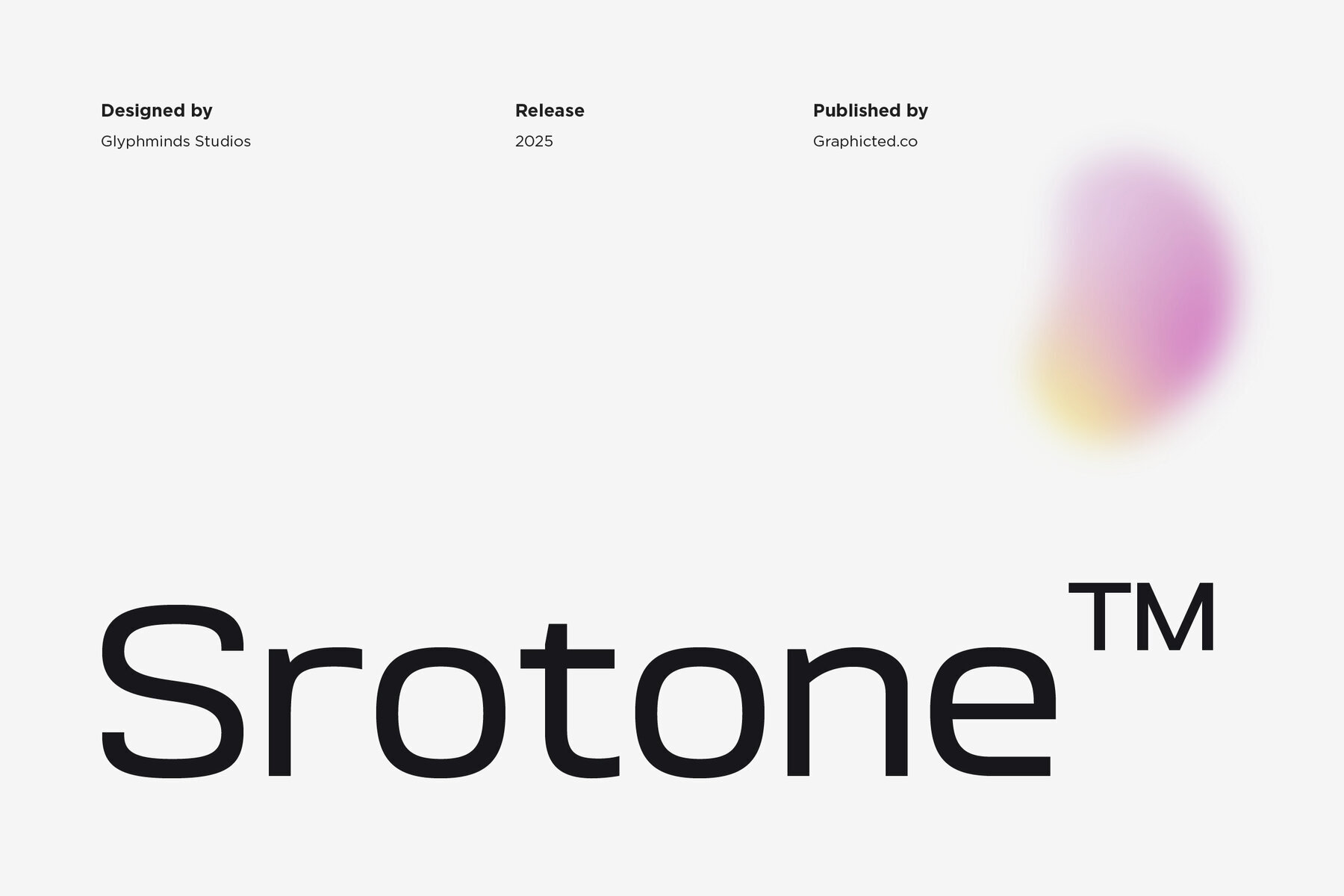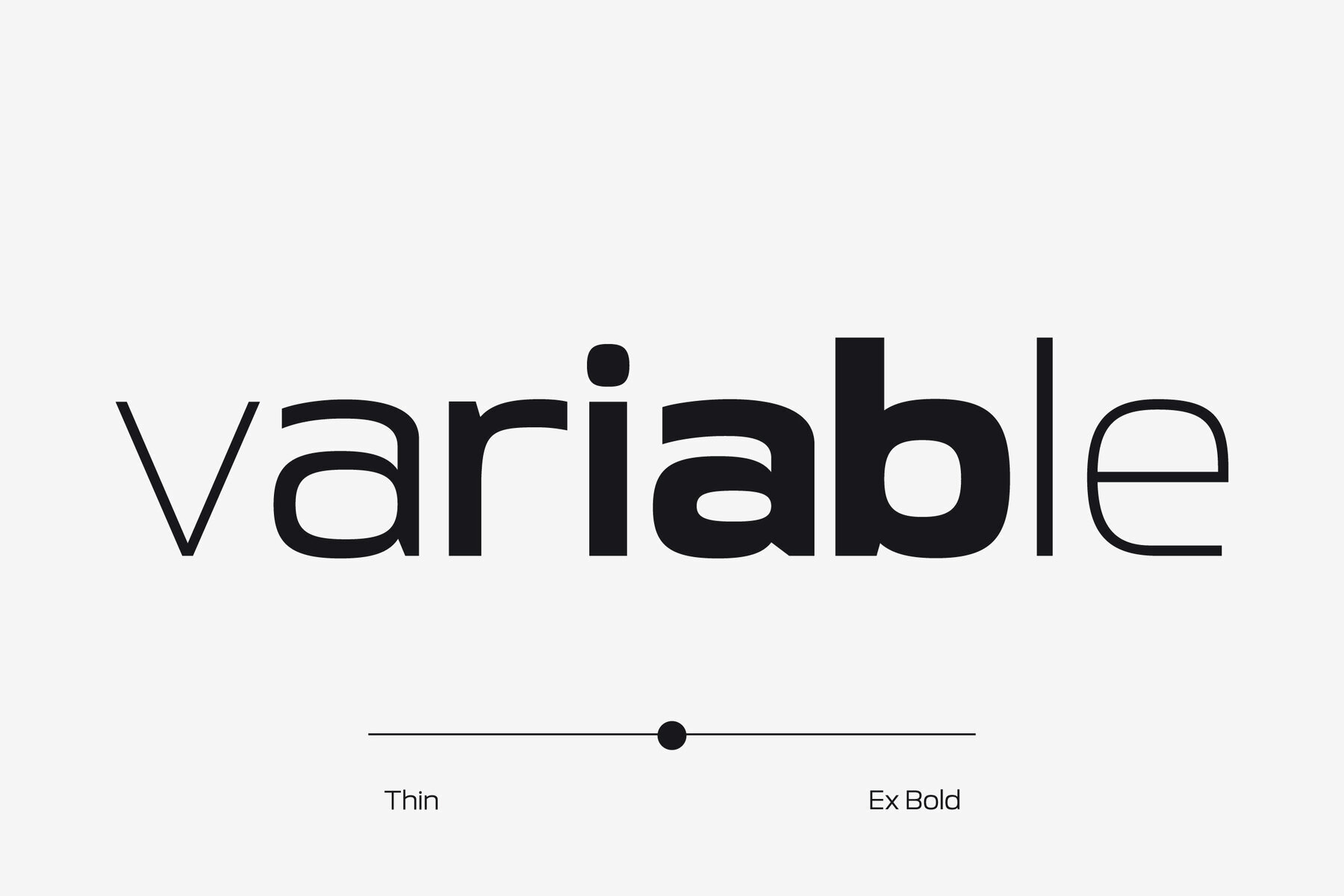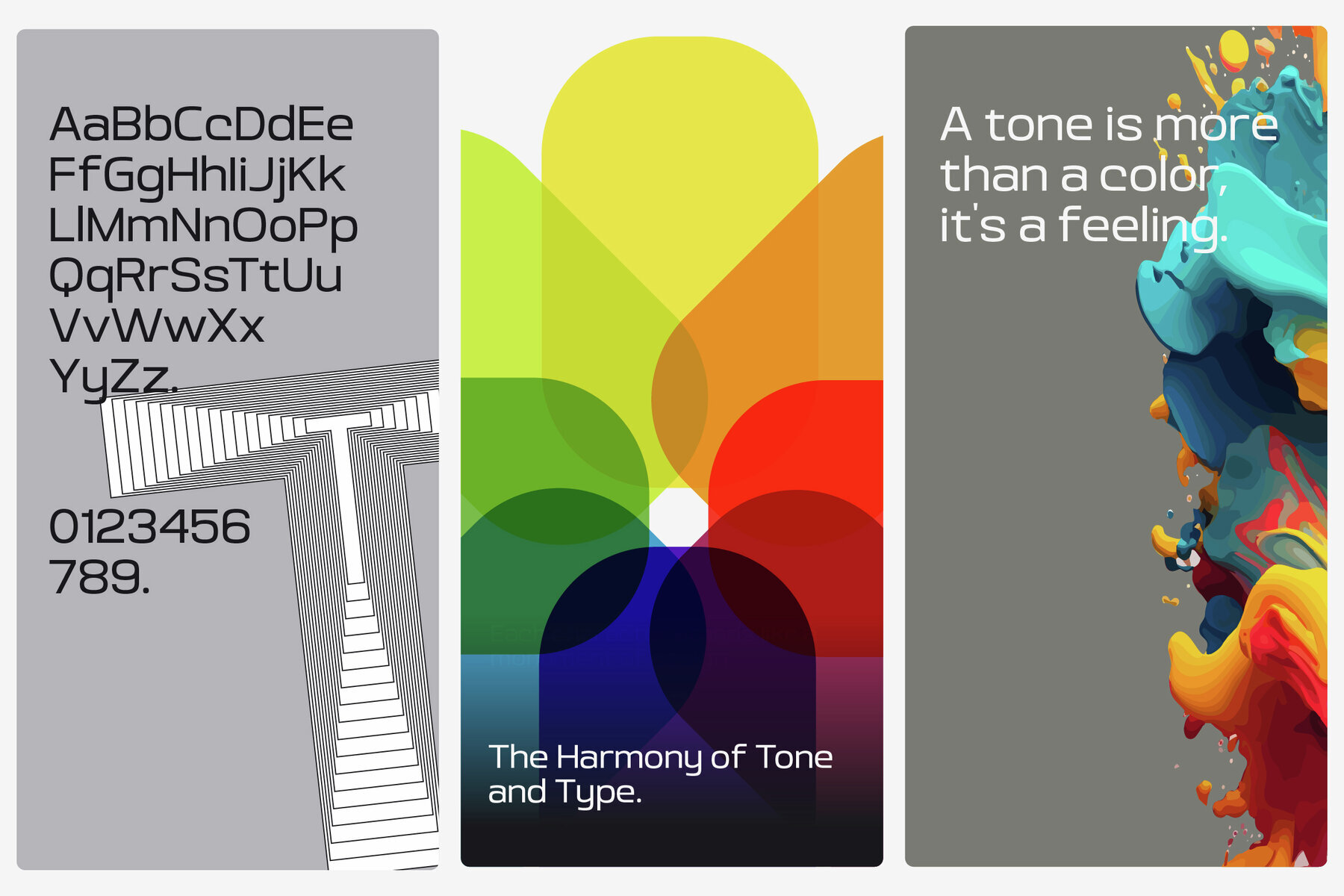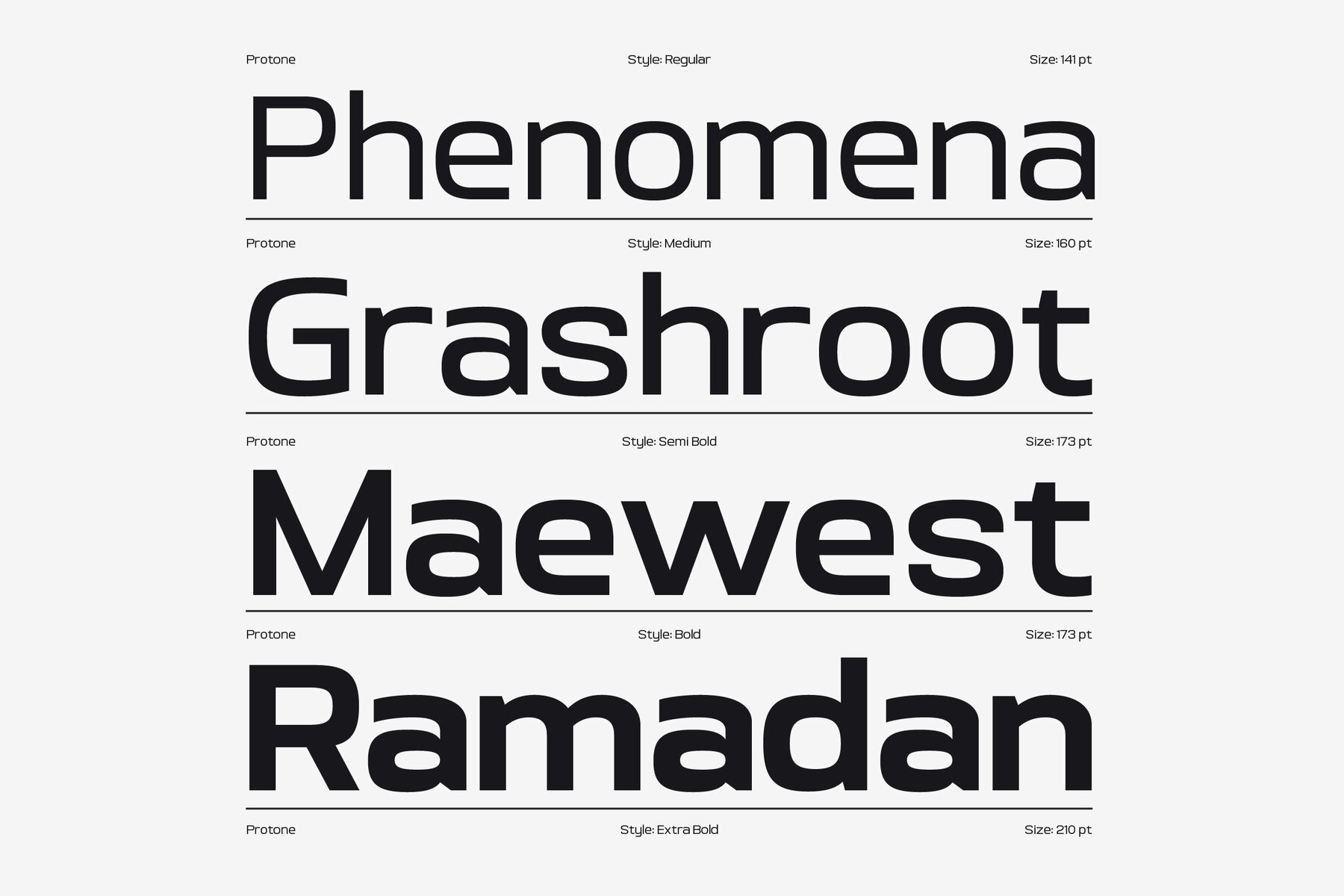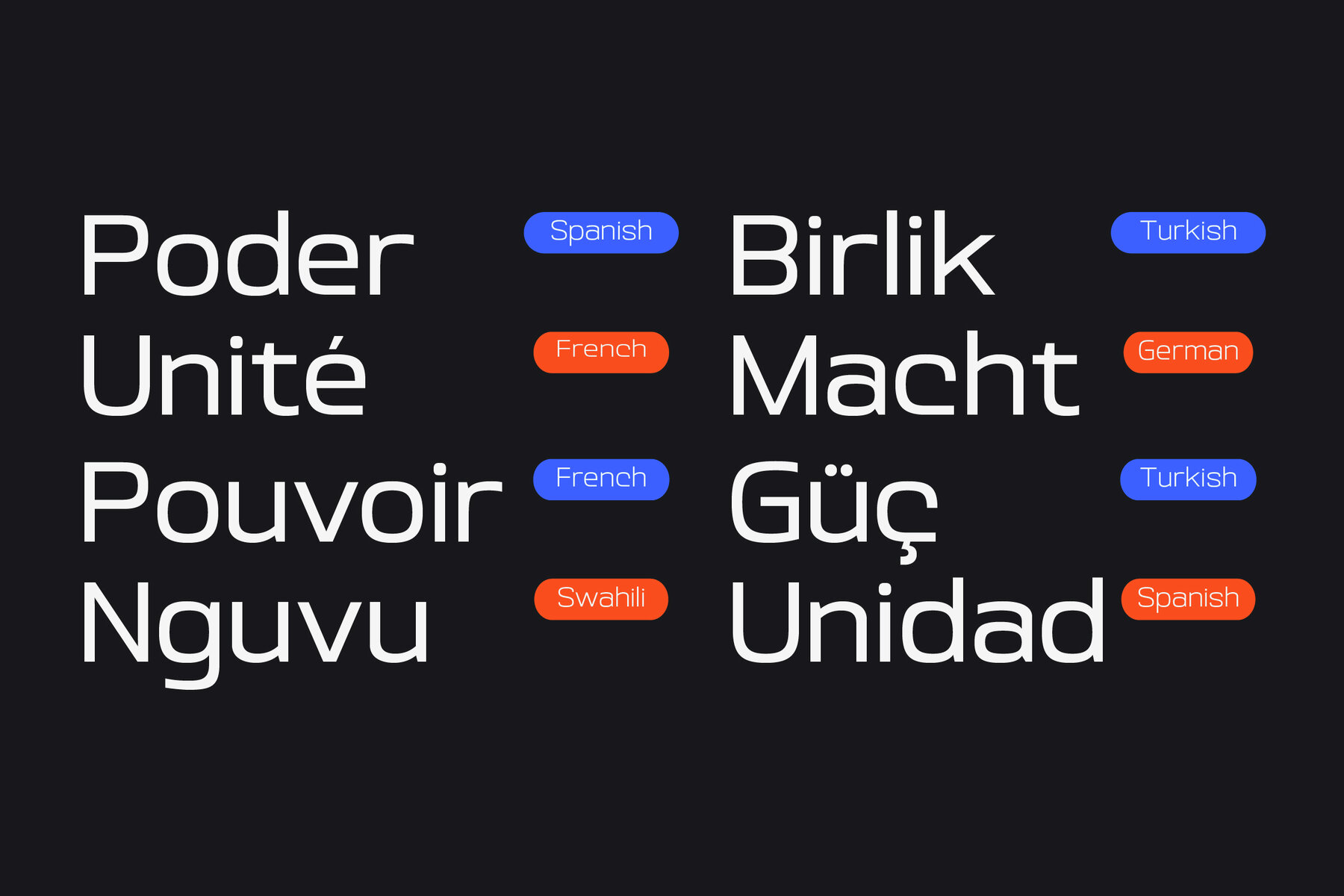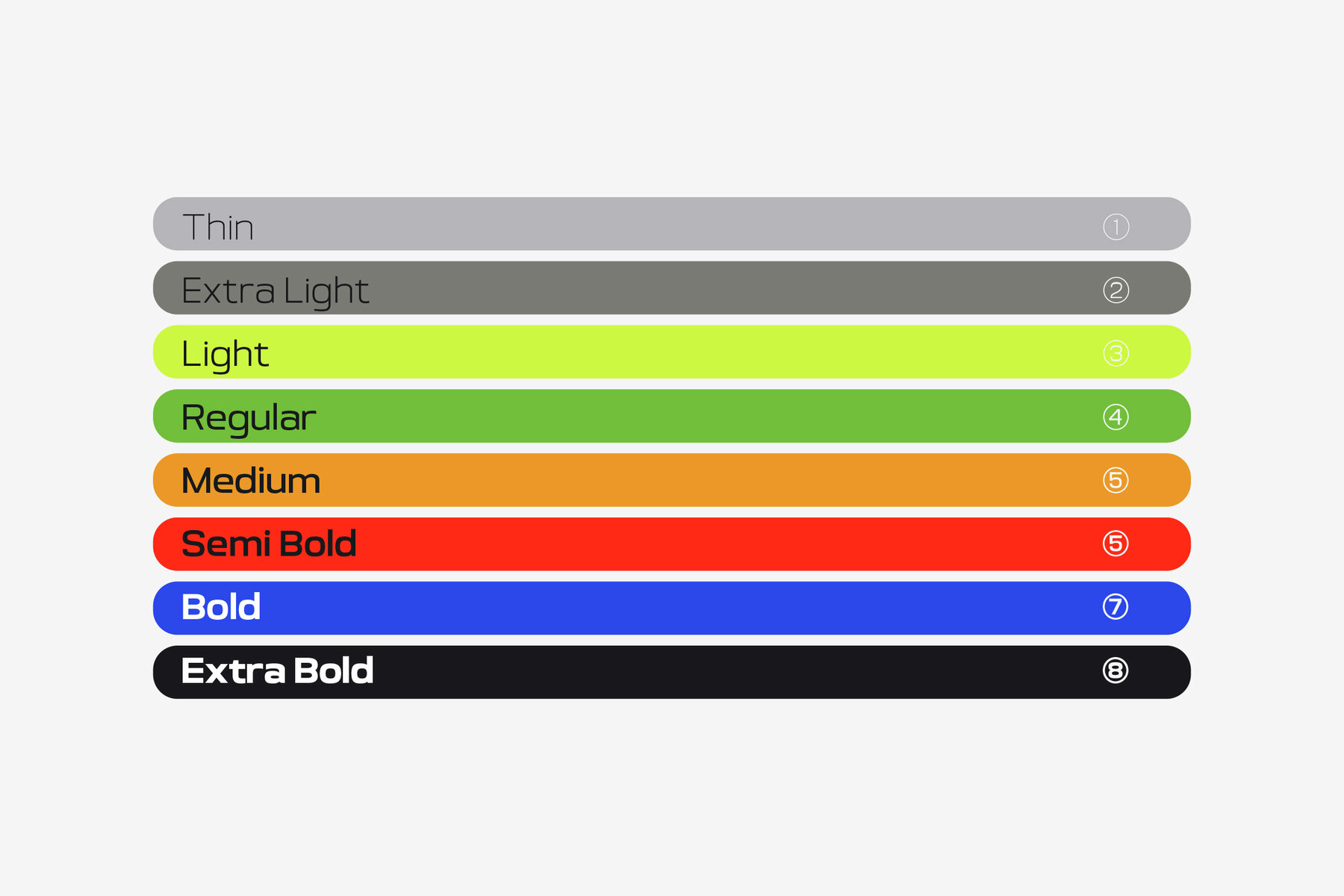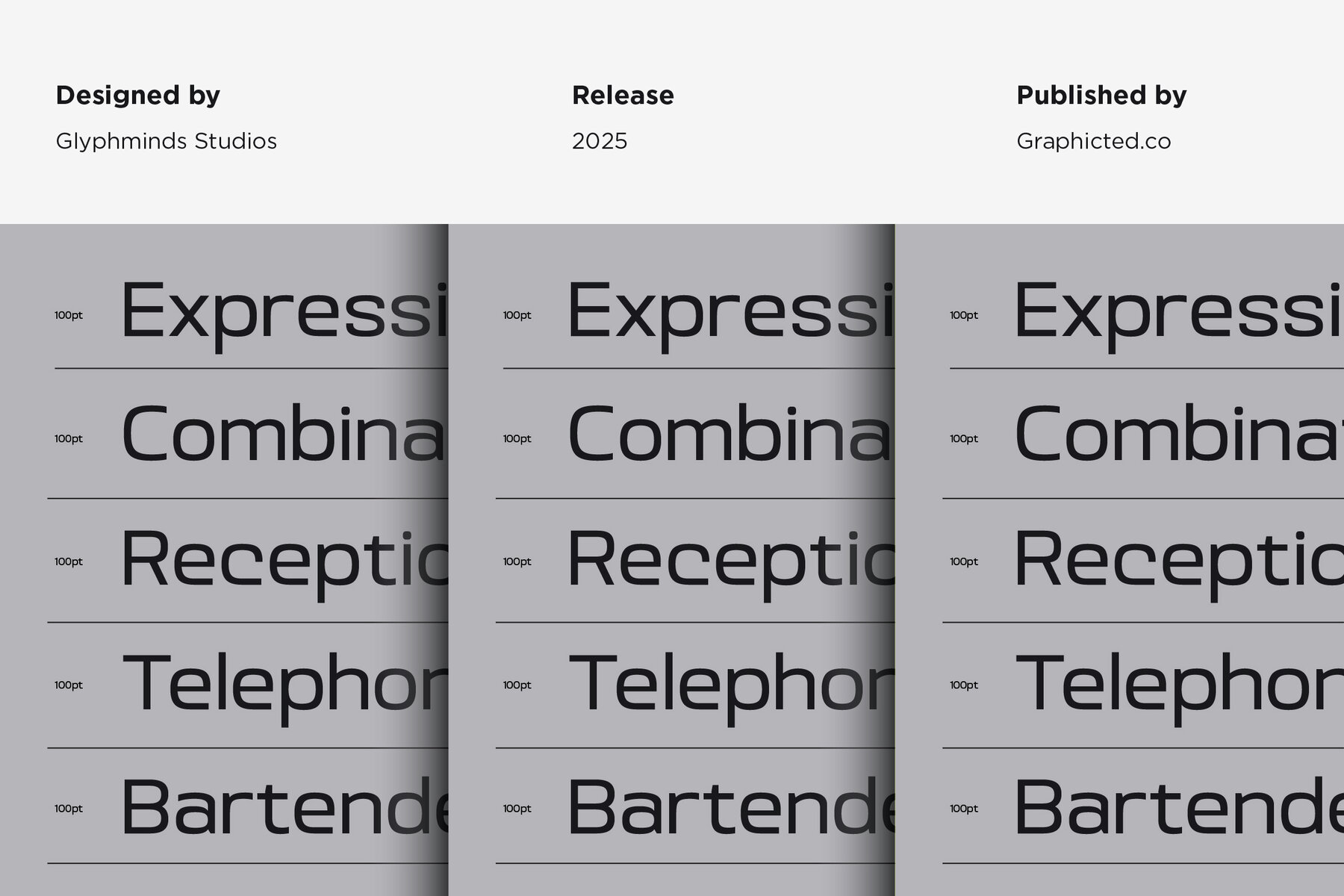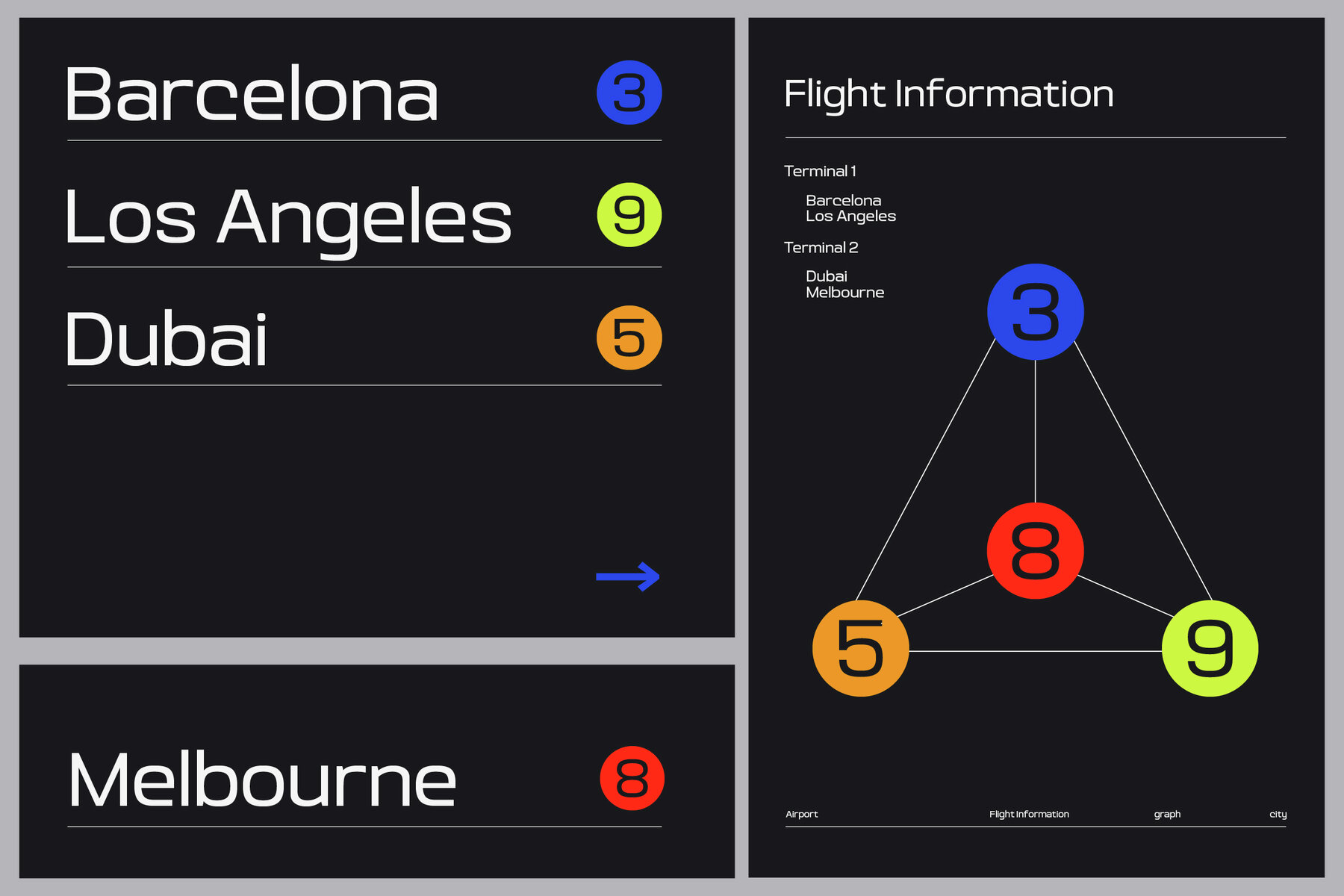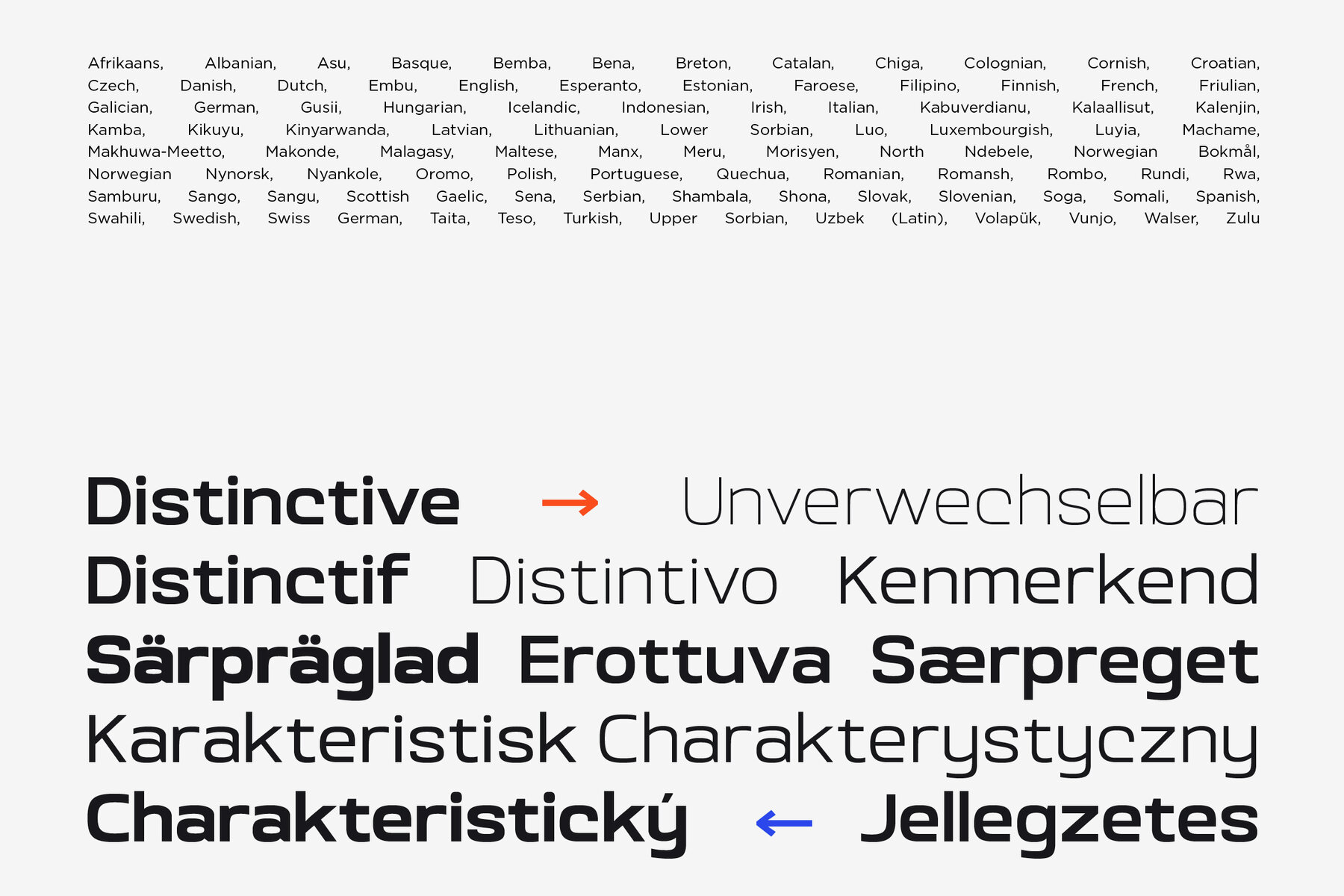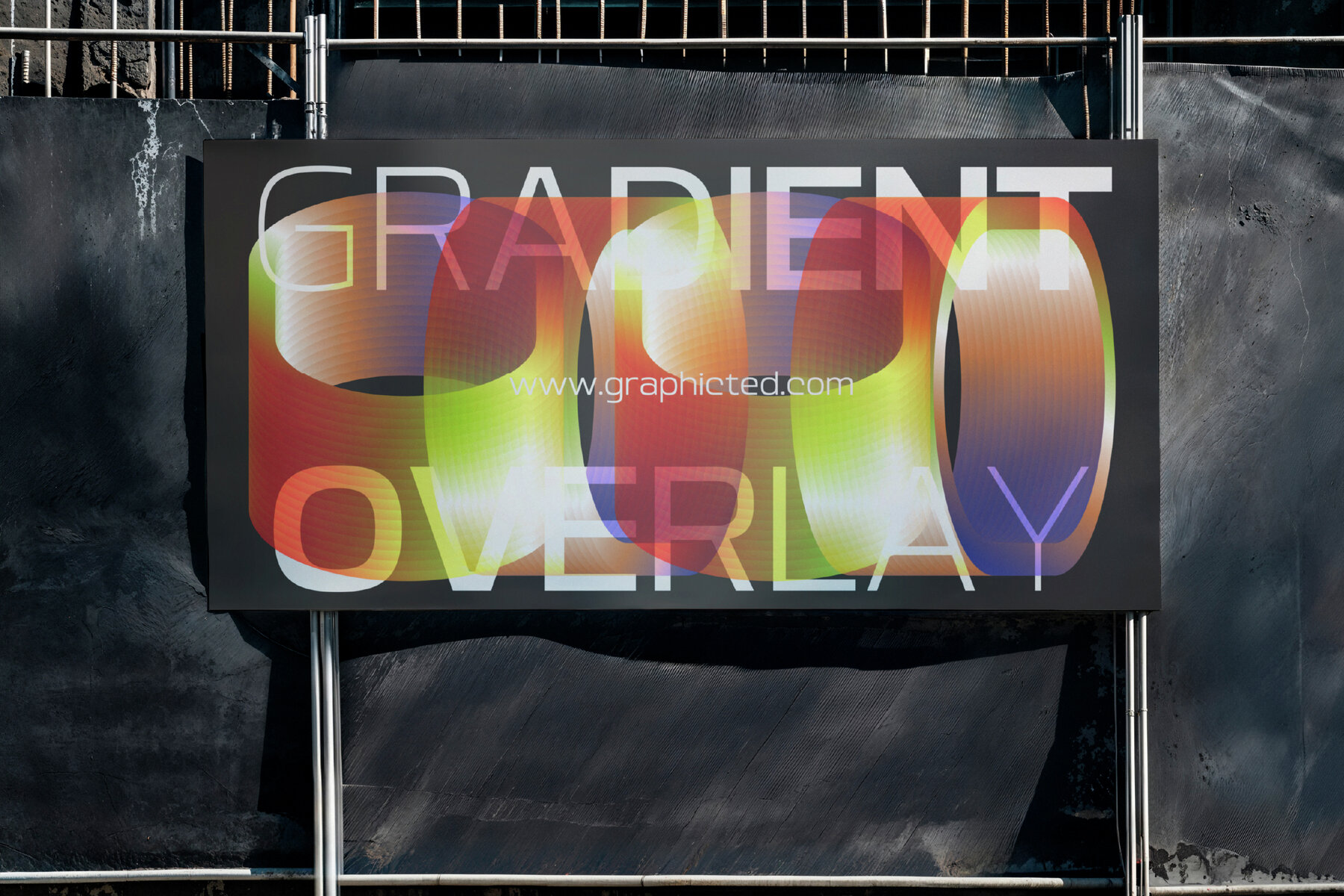
Srotone Font
Srotone is a geometric sans serif typeface that offers both versatility and clarity. Its smooth curves and balanced proportions impart a professional yet approachable aesthetic, making it ideal for a variety of design projects. From branding and digital interfaces to editorial layouts and minimalist designs, Srotone seamlessly melds functionality with elegance.Srotone: A Geometric Sans Serif for Modern Design